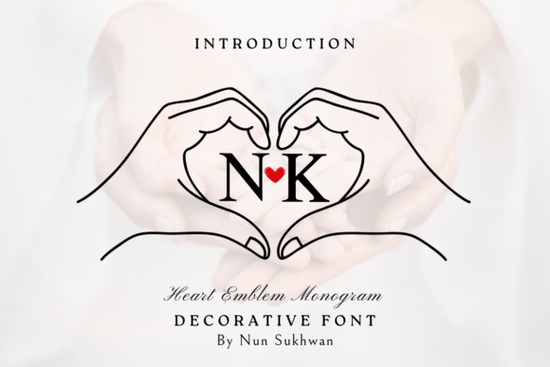
If you're looking for a charming and versatile decorative font that adds warmth to your designs, the Heart Emblem Monogram Font is worth exploring. Designed with subtle elegance and a touch of whimsy, it’s especially well-suited for projects that call for a personal or heartfelt feel think wedding stationery, gift tags, custom apparel, or seasonal crafts. Whether you’re a print-on-demand seller crafting Valentine’s Day mugs or a small business owner designing boutique packaging, this font offers a distinctive look without overwhelming your layout.
What makes Heart Emblem Monogram stand out?
Unlike standard script or block fonts, the Heart Emblem Monogram Font blends classic monogram styling with delicate heart-shaped embellishments built right into each character. This means you don’t need to layer graphics or manually add icons the design is already integrated. The result? Clean, cohesive visuals that save time during production while still feeling handcrafted.
It works beautifully in both uppercase and lowercase settings, though many users prefer the uppercase version for its bolder emblem-like appearance. The font supports basic Latin characters and common punctuation, making it practical for short phrases, names, or initials ideal for personalized gifts or branding accents.
Who should use this font?
This typeface shines in niche creative contexts:
- Print-on-demand sellers creating mugs, tote bags, or T-shirts with romantic or family-themed messages.
- Wedding designers crafting invitations, place cards, or favor labels where initials matter.
- Crafters and hobbyists making handmade cards, scrapbook elements, or vinyl decals for home décor.
- Small businesses wanting a unique but readable logo accent or product label detail.
Because of its decorative nature, it’s best used sparingly as a headline, monogram, or accent not for body text. Pair it with a clean sans-serif font (like Montserrat or Lato) to maintain readability while letting the Heart Emblem Monogram take center stage.
How does it compare to other romantic fonts?
If you’ve browsed Creative Fabrica’s decorative fonts before, you might have seen options like those in the Valentine’s Font Bundle. While that collection offers variety scripts, handwritten styles, and playful display fonts the Heart Emblem Monogram Font stands apart with its structured yet affectionate aesthetic. It’s less about flowing loops and more about symbolic, emblematic letterforms that double as mini-graphics.
For example, if you’re designing a “Mr. & Mrs.” wedding sign, this font lets you present initials inside heart-shaped glyphs effortlessly. Other fonts might require extra design steps; here, the charm is baked in.
Practical tips for using it effectively
To get the most out of this font, keep these pointers in mind:
- Use high-resolution exports. Because of its detailed elements, avoid scaling it too small it can lose clarity below 24pt in digital formats or under 1 inch in physical prints.
- Stick to solid backgrounds. The intricate cutouts and curves work best against plain or lightly textured surfaces, not busy patterns.
- Limit character count. It’s designed for impact in short bursts names, dates, or 2–3 word phrases not paragraphs.
- Test kerning manually. Some letter pairs may need slight spacing adjustments depending on your software (especially in Cricut Design Space or Silhouette Studio).
Where else can you find similar styles?
If you like this aesthetic but want more options, explore the broader decorative fonts category on Creative Fabrica. Look for keywords like “emblem,” “monogram,” “engraved,” or “heart” to uncover fonts with comparable structure and sentiment. Many are bundled affordably, which is great if you run a small shop and need multiple typefaces for different seasons or clients.
Remember: the best fonts serve your message, not distract from it. The Heart Emblem Monogram Font succeeds because it enhances emotional resonance without sacrificing professionalism making it a reliable choice for creators who value both beauty and function.